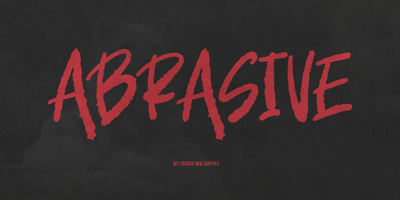
Abrasive
Abrasive font
Abrasive Font Family was designed by Irpan Maulana and published by Create Big Supply. Abrasive contains 1 styles and family package options. Abrasive font Brush is a font that has a rough, strong, bold, natural, brushed and stroked style. Whatever the topic, this font will be a great asset to your font library, as it has the potential to enhance any creation. Features: Uppercase & lowercase Numbers and punctuation Multilingual PUA Encoding Full Character Set!”#$%&()*+,-./0123456789:;<=>?@ABCDEFGHIJKLMNOPQRSTUVWXYZ[]^_`abcdefghijklmnopqrstuvwxyz{}~ ¡¢£¤¥§¨©ª«­®°±²³¸¹º»¿ÀÂÃÄÅÆÇÈÉÊËÌÍÎÏÑÒÓÔÕÖרÙÛÜÝßàáâãäåæçèéêëìíîïñòóôõö÷øùúûüýÿŒœŠšŸžˆˇ˚˜–—‘’“”†•‹›€−